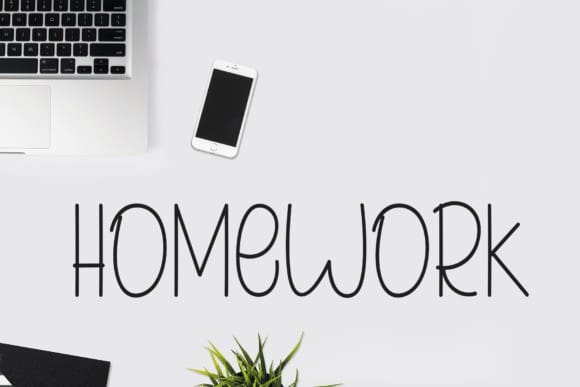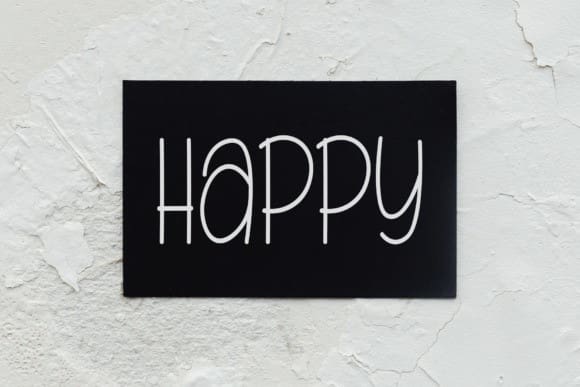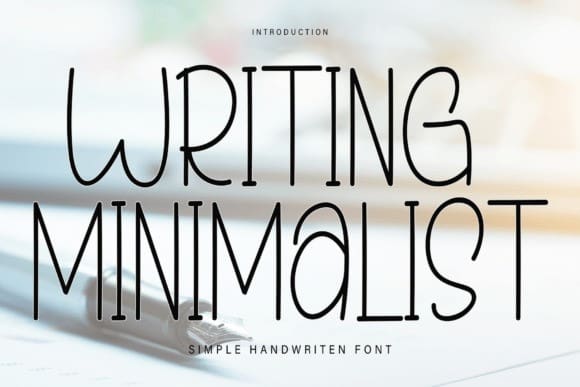
Writing Minimalist Font
Writing Minimalist Font is a sweet and friendly handwritten font. Fun and relaxed, this font is ideal for writing wedding invitations, cards, or any other design that might need a lovely touch!